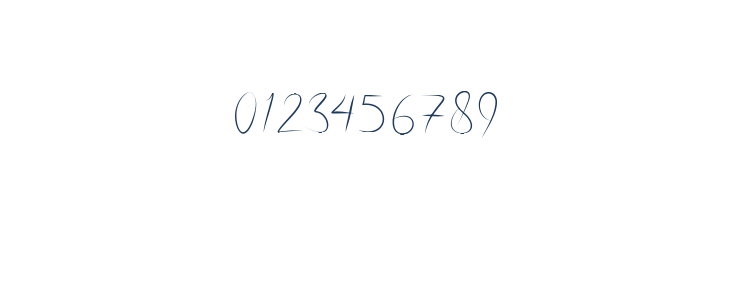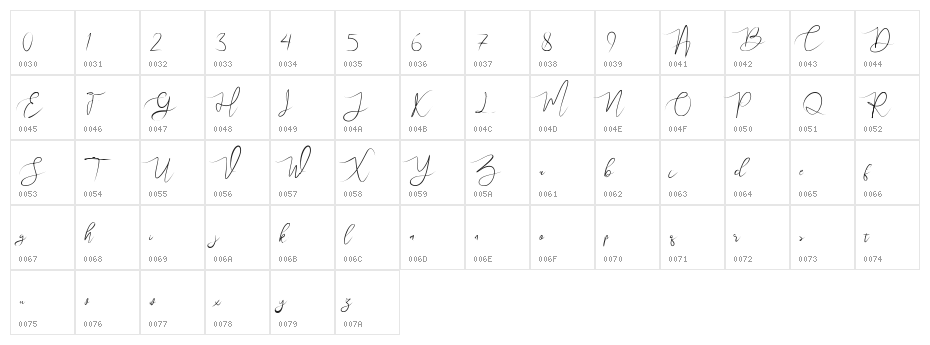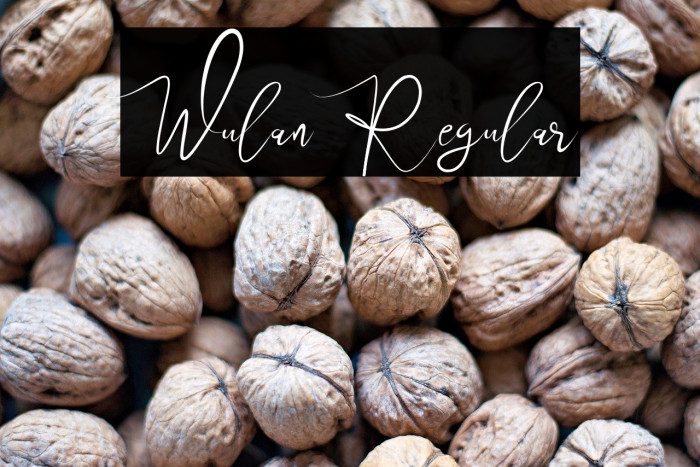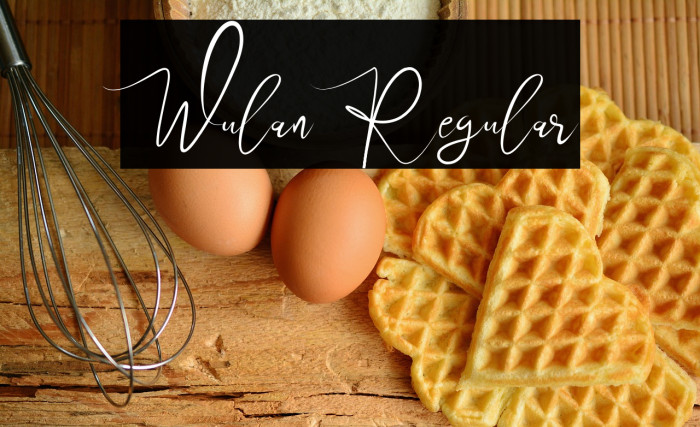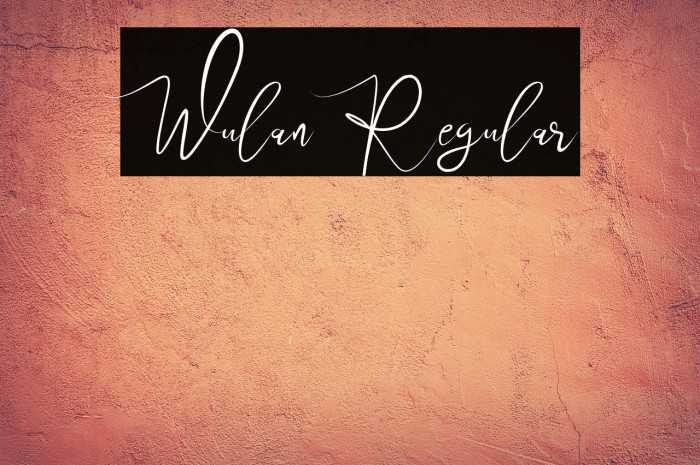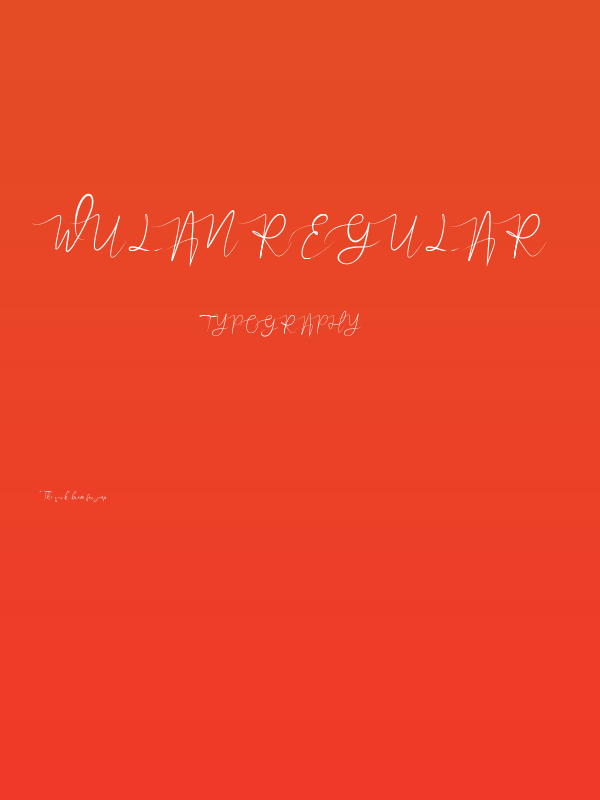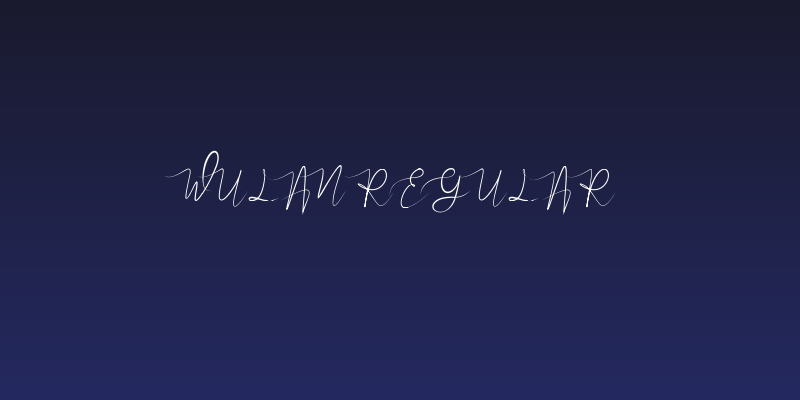
Wulan Regular Font
Wulan Regular Description
This font features an elegant and flowing script style, characterized by its delicate, cursive strokes and smooth, continuous lines. The uppercase letters exhibit a graceful, airy quality with sweeping curves and loops, while the lowercase letters maintain a consistent, fluid motion that enhances readability. The numerals are similarly styled, with a refined, artistic flair that complements the overall aesthetic. The font's thin lines and subtle variations in stroke width add a touch of sophistication, making it suitable for projects that require a personal, handwritten touch.
Overall StyleElegant, Handwritten
Use CaseLogos, Invitations, Personal Branding
Proposed ProjectsIdeal for wedding invitations, greeting cards, personal branding, and elegant packaging designs.